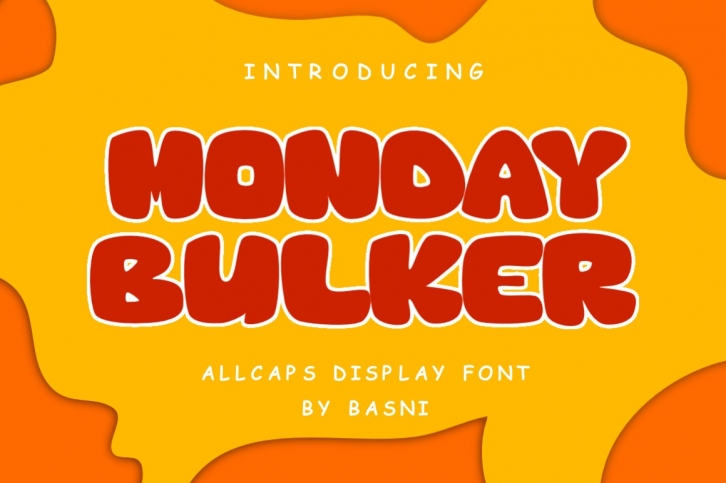
MONDAY BULKER is a trendy and unique font with an authentic style. It was designed by Basnistd and it's a great choice for creative people who need such a font. It was released on August 30, 2021 and the file size is 19.36 MB. MONDAY BULKER will add an organic vibe to any design idea!